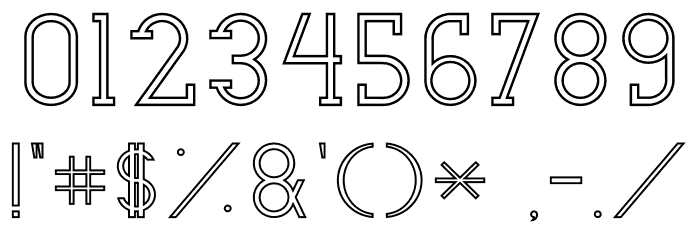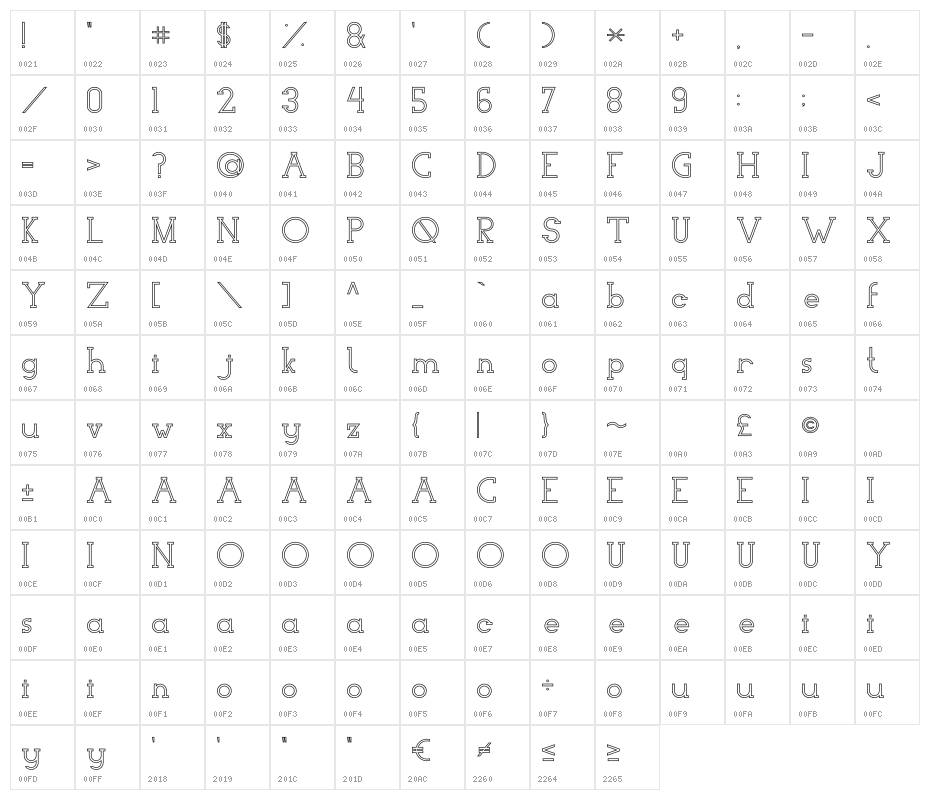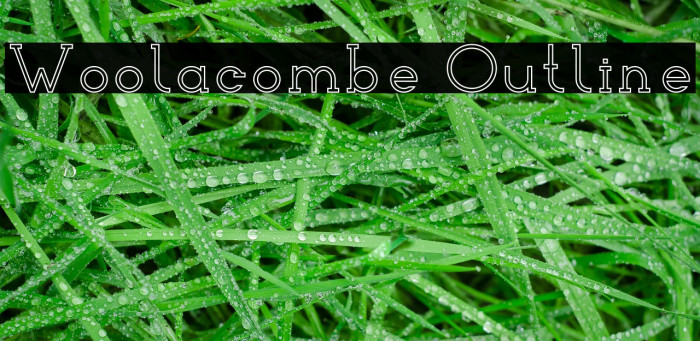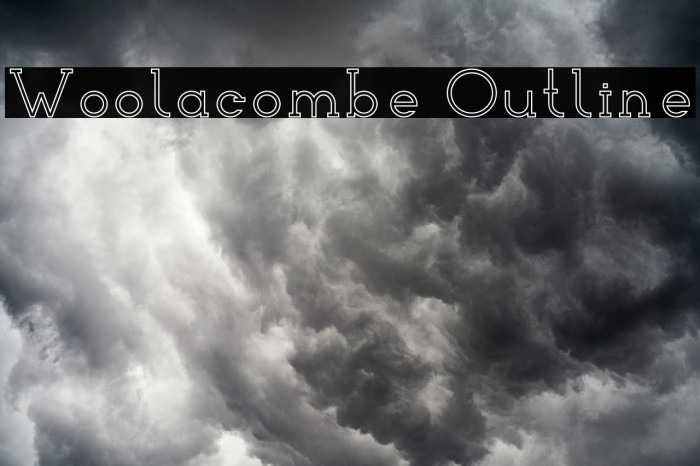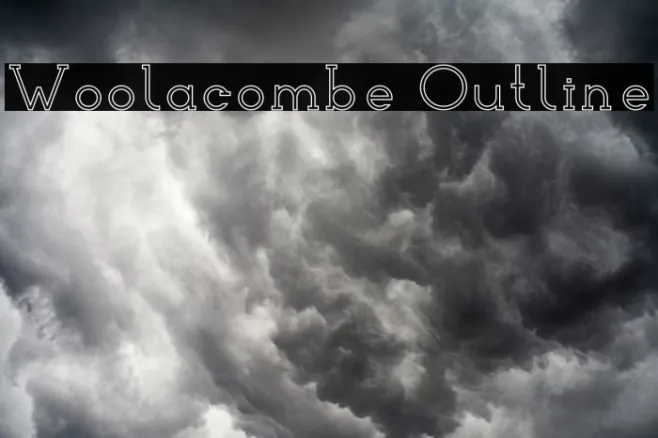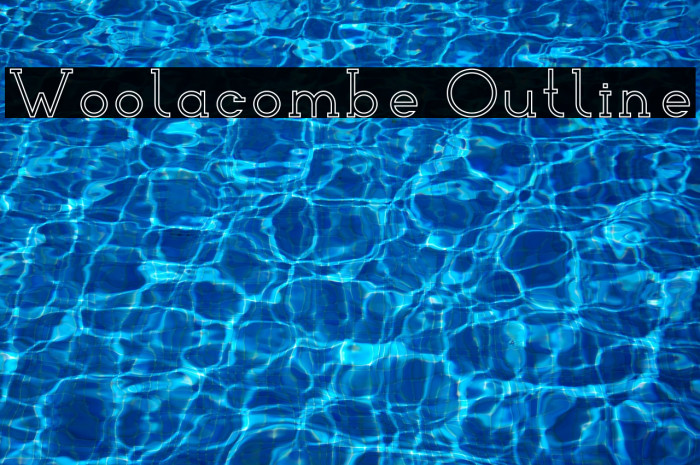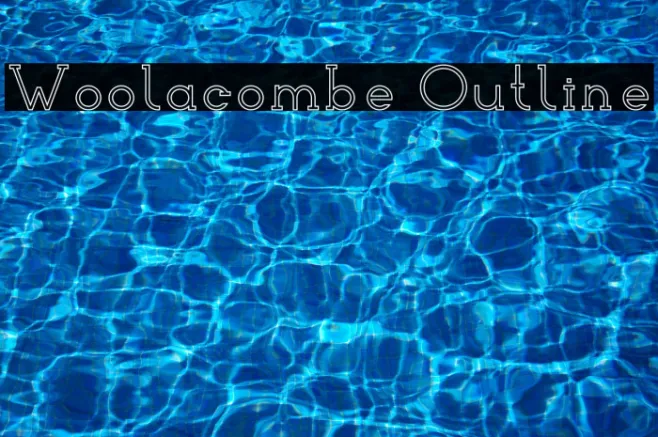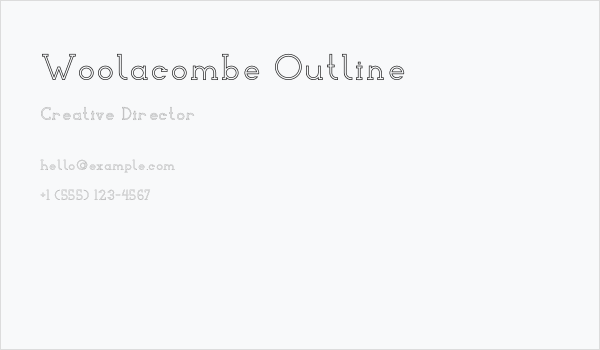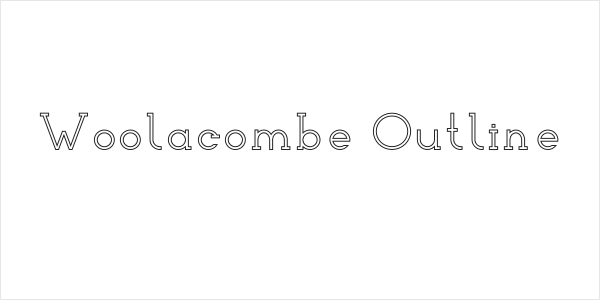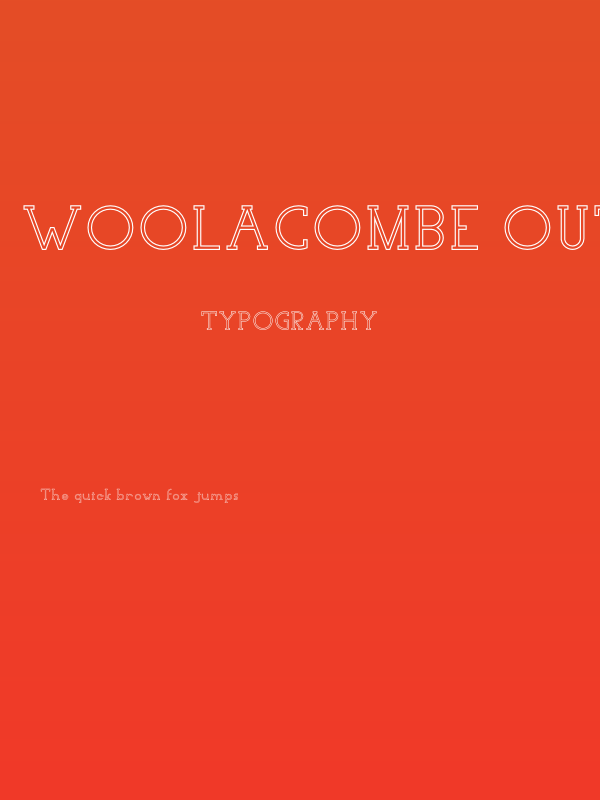
Woolacombe Outline Font
Woolacombe Outline Description
This font features a distinctive outline style, characterized by its clean and geometric letterforms. The uppercase and lowercase letters maintain a consistent structure, with sharp angles and precise curves. The numerals and special characters are designed to complement the alphabet, offering a cohesive look across all glyphs. The font's outline nature gives it a modern and airy feel, making it suitable for a variety of design applications where a bold yet unobtrusive presence is desired. Its clarity and simplicity make it versatile for both digital and print media.